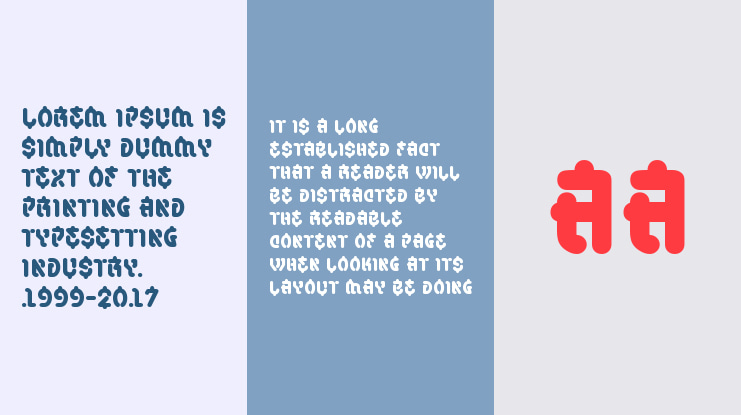
SamuraiCabCo BB Font Family
This is one of those instances when I needed a specific look for a comic â the setting was a futuristic anime world and I needed to letter the side of a hover-cab. POOF! SAMURAI CAB CO. was born! Includes Regular and Outline.